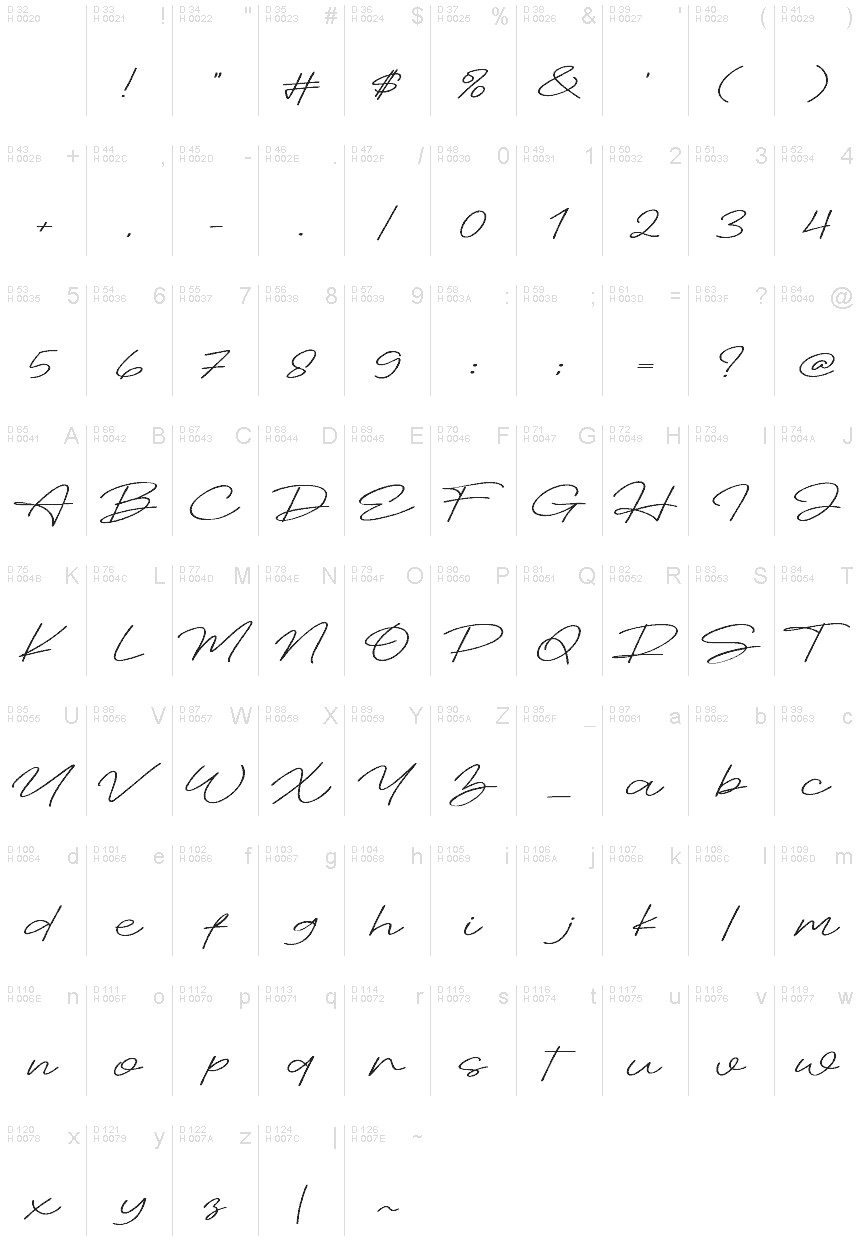
Winter Prime Monoline
Winter Prime Monoline font is a free handwritten font designed by Khurasan. With its light weight and expanded width, this font exudes a stylish aesthetic, showcasing an elegant, flowing, and expressive style. It carries a modern calligraphic touch that makes it stand out with a unique charm.
Suitable for branding projects, this graceful typeface looks even better on logos and labels. Use it to decorate tags or business cards or in writing elegant book titles or movie cover designs. Get the absolute best of each letter with greeting cards and wedding invitations as well!